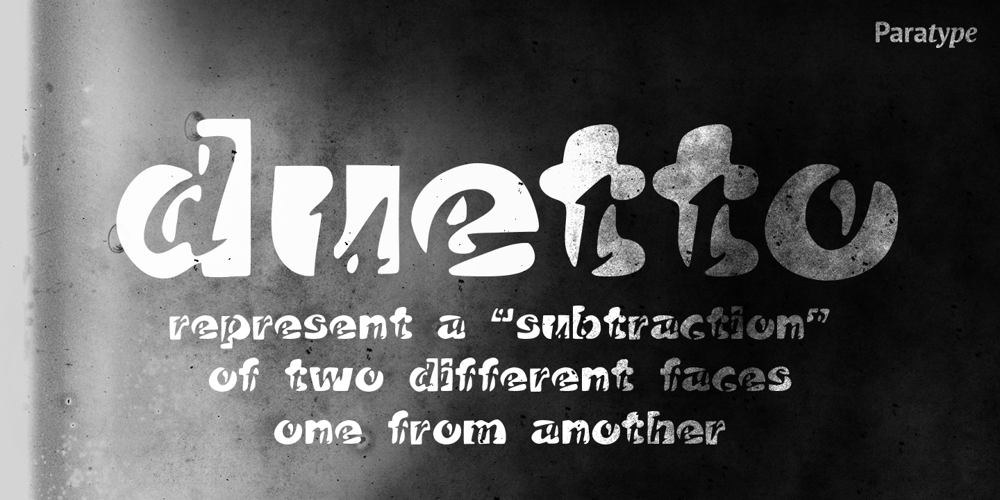
Duetto
Duetto font
Duetto Font Family was designed by Boris Popov and published by ParaType. Duetto contains 1 styles and family package options. The letterforms of this face represent a “subtraction” of two different faces by weight, style, and shape — one from another. The shapes of TM Miniature Italic are subtracted from FreeSet Bold with subsequent deconstruction. Though the spots may look amorphous they create images of both external and internal. At the same time none of them is explicit. The alphabet is lower case only. Designed by Boris Popov and licensed by ParaType in 2002 .